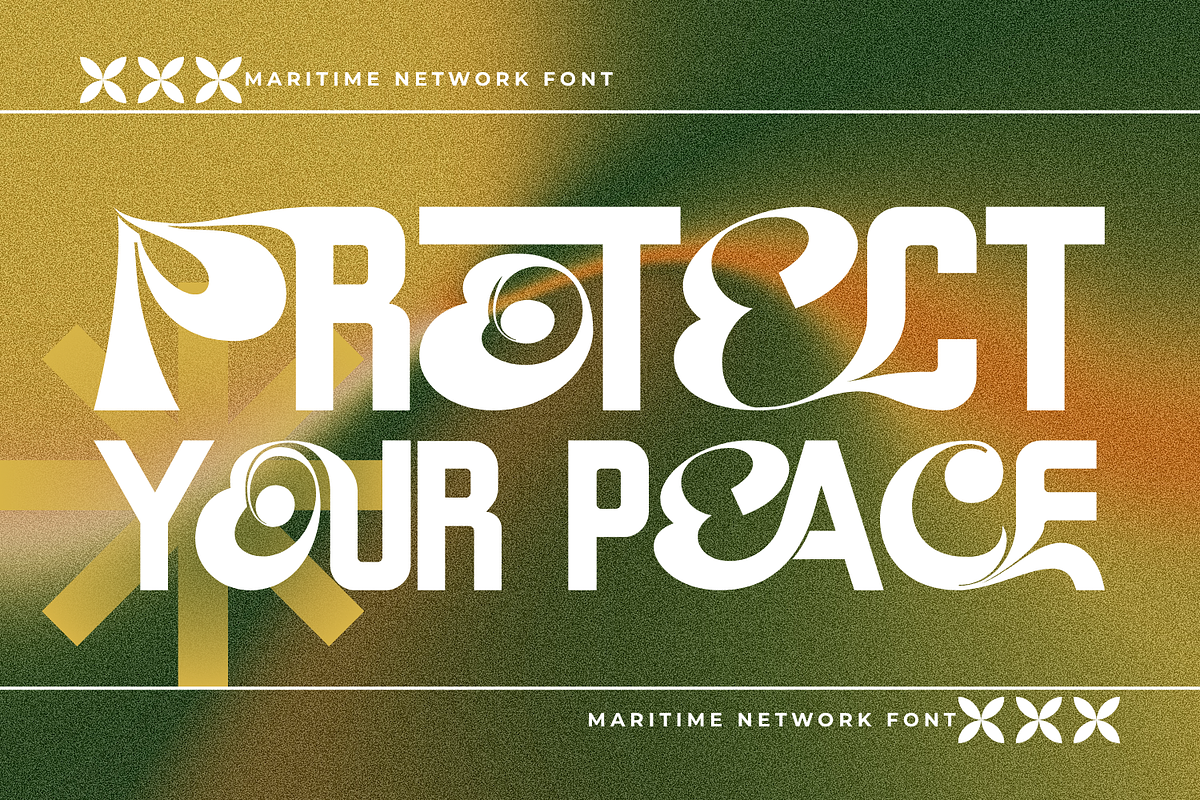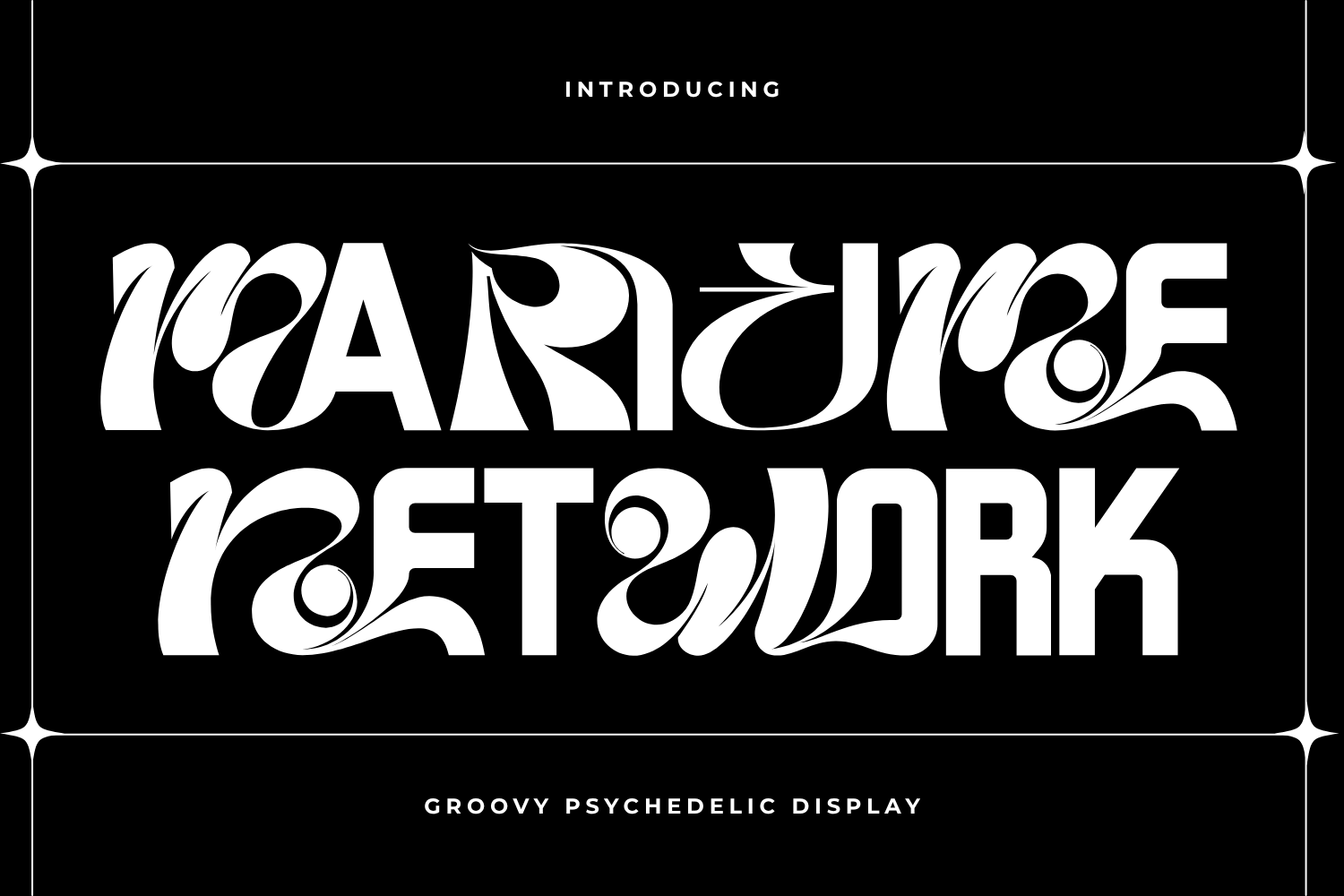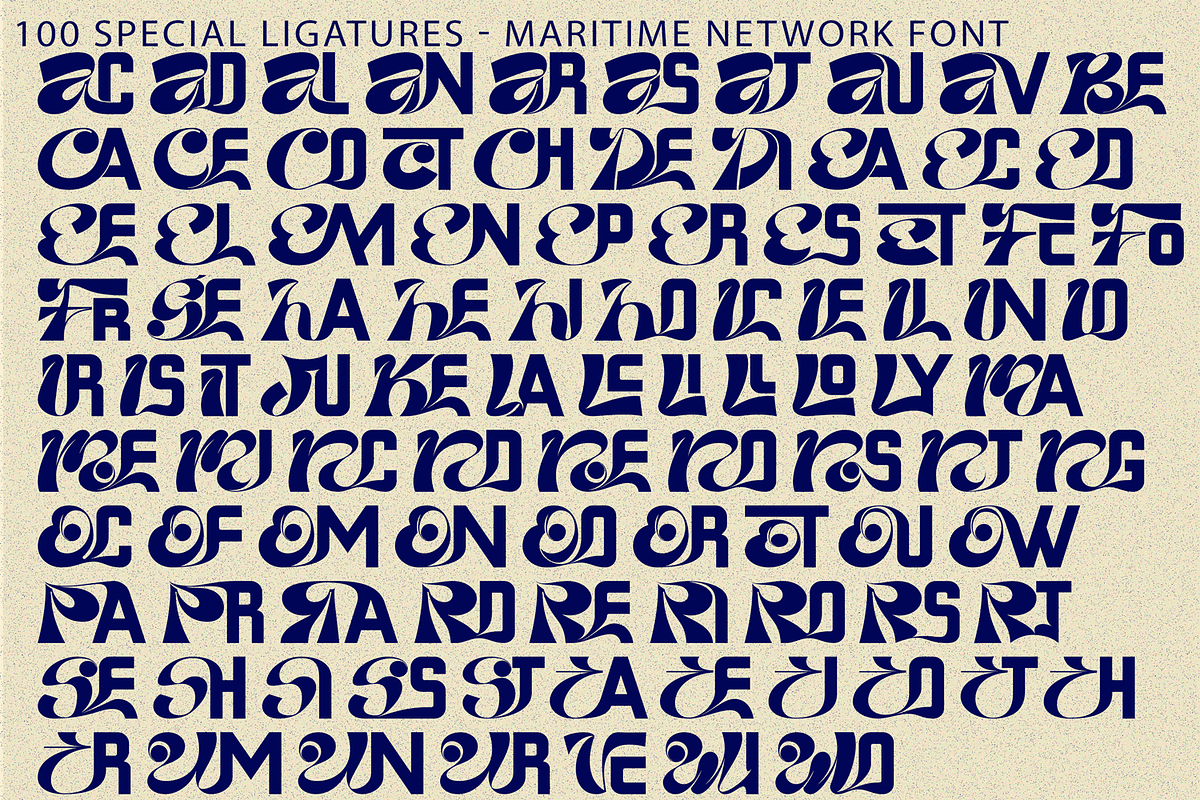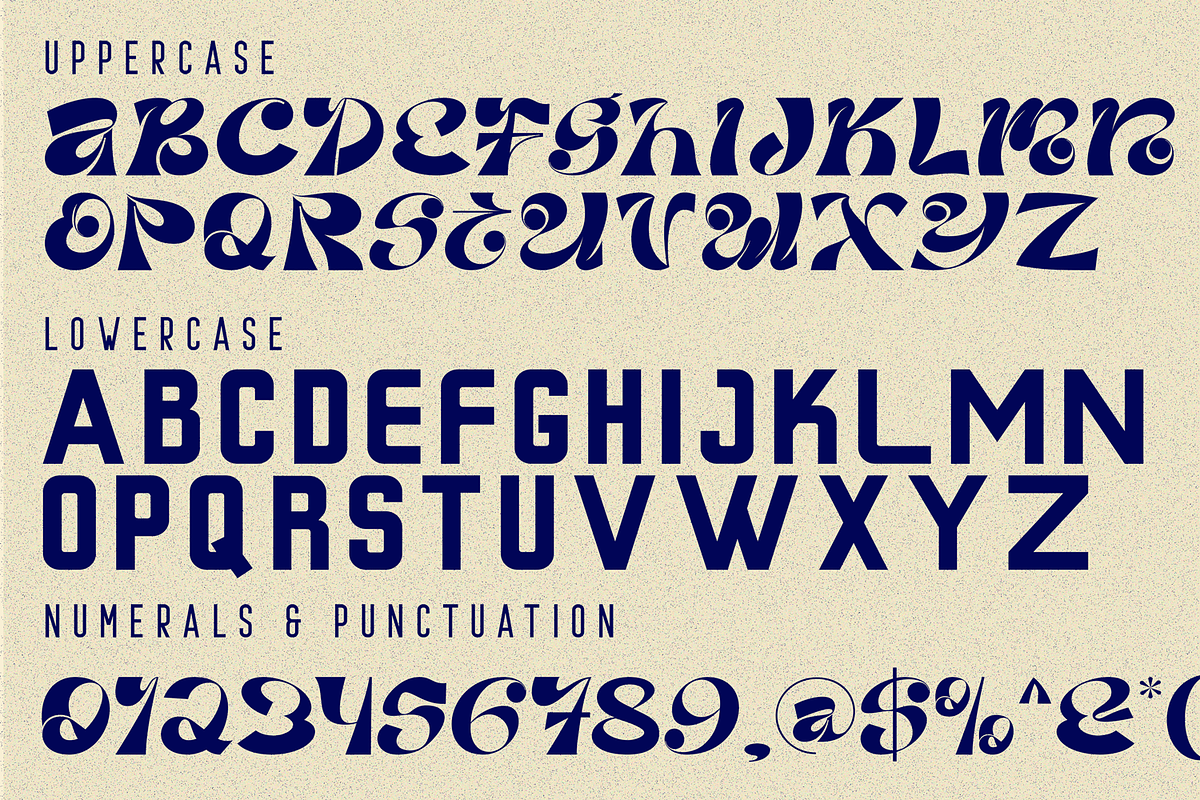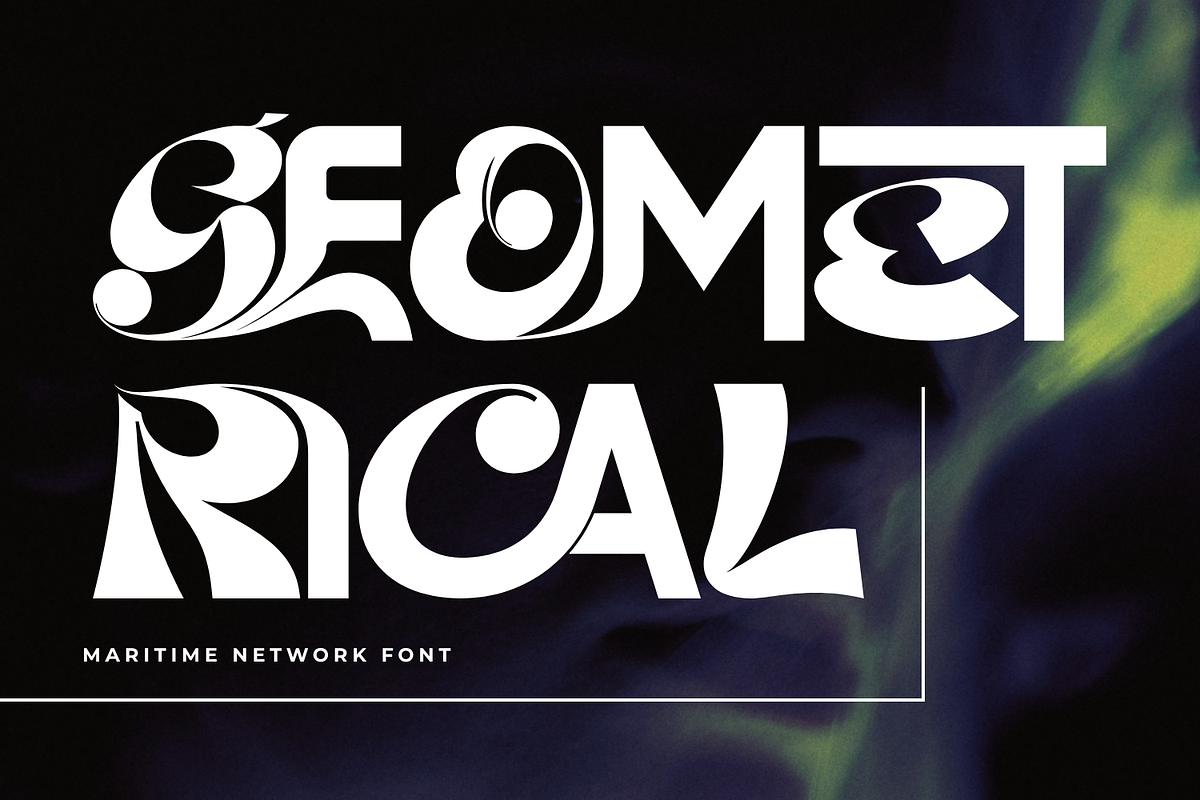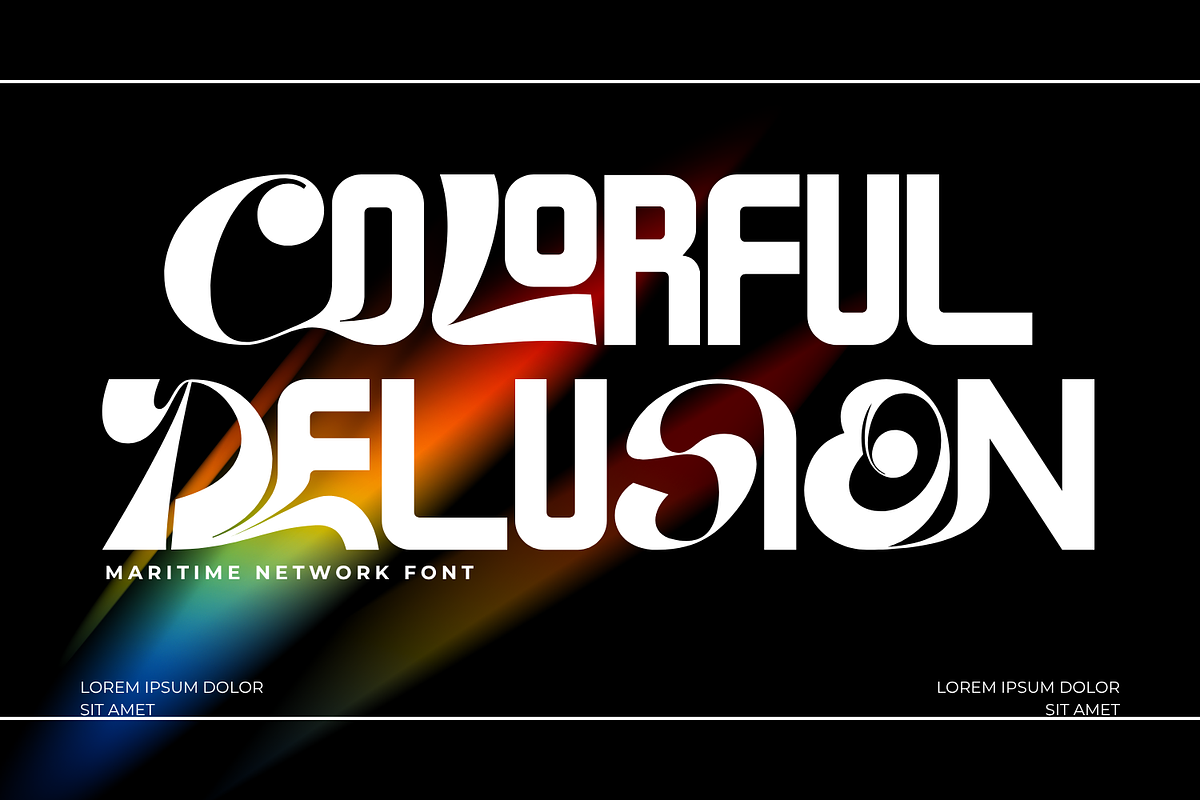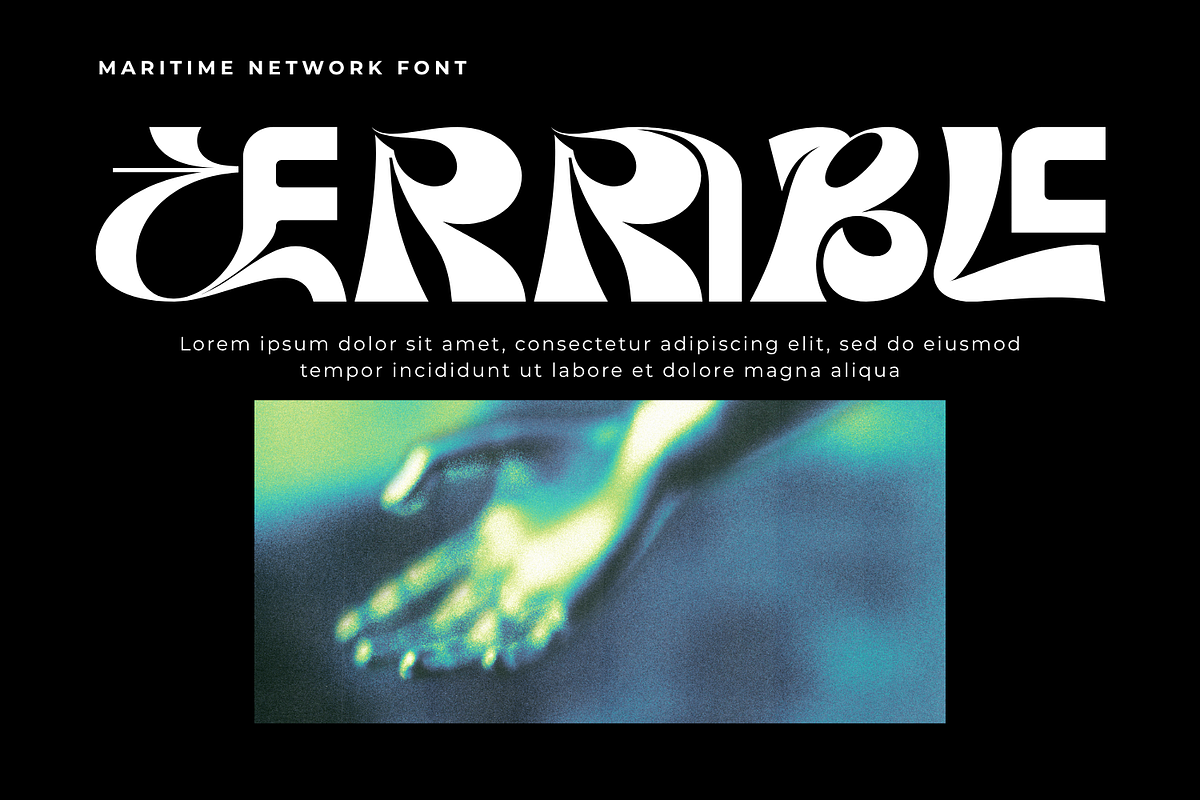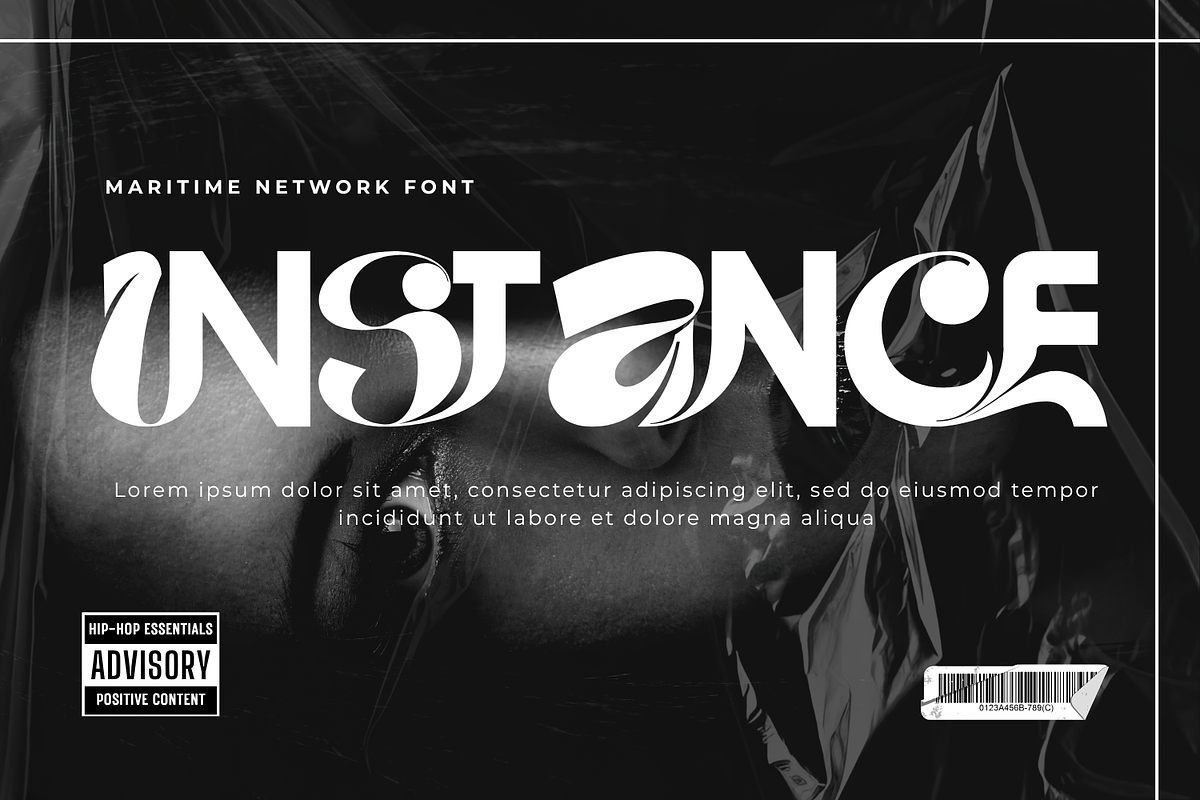
Maritime Network - Psychedelic Font
Maritime Network - Psychedelic Font – Psychedelic Ocean Wave & Liquid Display Font, a spellbinding psychedelic display font inspired by the fluid dynamics of ocean waves and 1970s liquid graphics. Characterized by its heavy chunky stature, sweeping wavy baselines, and embedded circular orb accents, this typeface brings an intoxicating organic rhythm and retro-futuristic energy to modern graphic design.
Featuring custom flame-like cutouts and fluid swoops that simulate cresting tides, Maritime Network transforms standard words into expressive typographic artwork. It is the perfect display choice for psychedelic album covers, surfwear and streetwear fashion, organic beverage packaging, summer music festival posters, and edgy lifestyle branding identities.
Uppercase & Lowercase Letters
Around 100 Special Ligatures & Alternates
Accented Characters for multilingual support
🔤About 100 ligatures combined with Stylistic Alternates Font:
ac ad al an ar as at au av be ca ce ch co ct de di ea ec ed ee el em en ep er es et fe fo fr ge ha he hi ho ie ic il in io ir is it ju ke la le li ll lo ly ma me mi nc nd ne ng no nt ns oc of om on oo op or ot ou ow pa pr ra rd re ri ro rs rt se sh si so ss st ta te th ti to tr tt um un ur ve wi wo